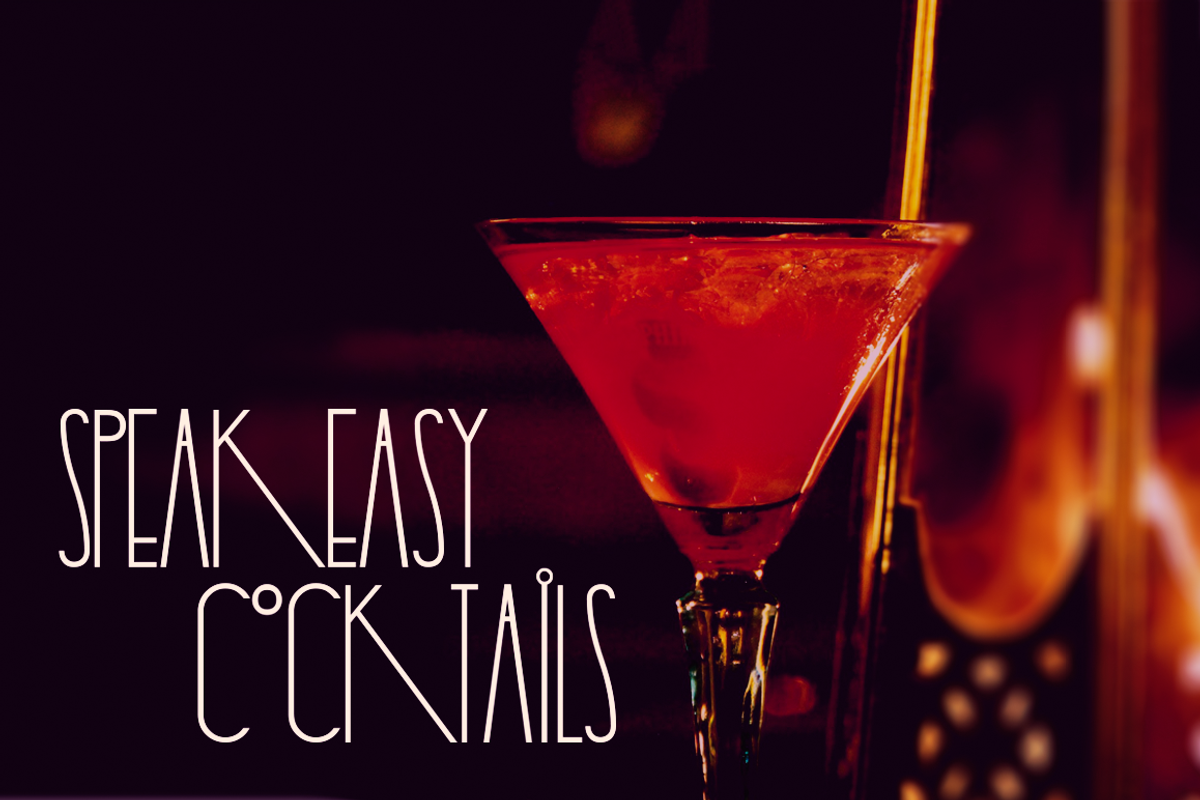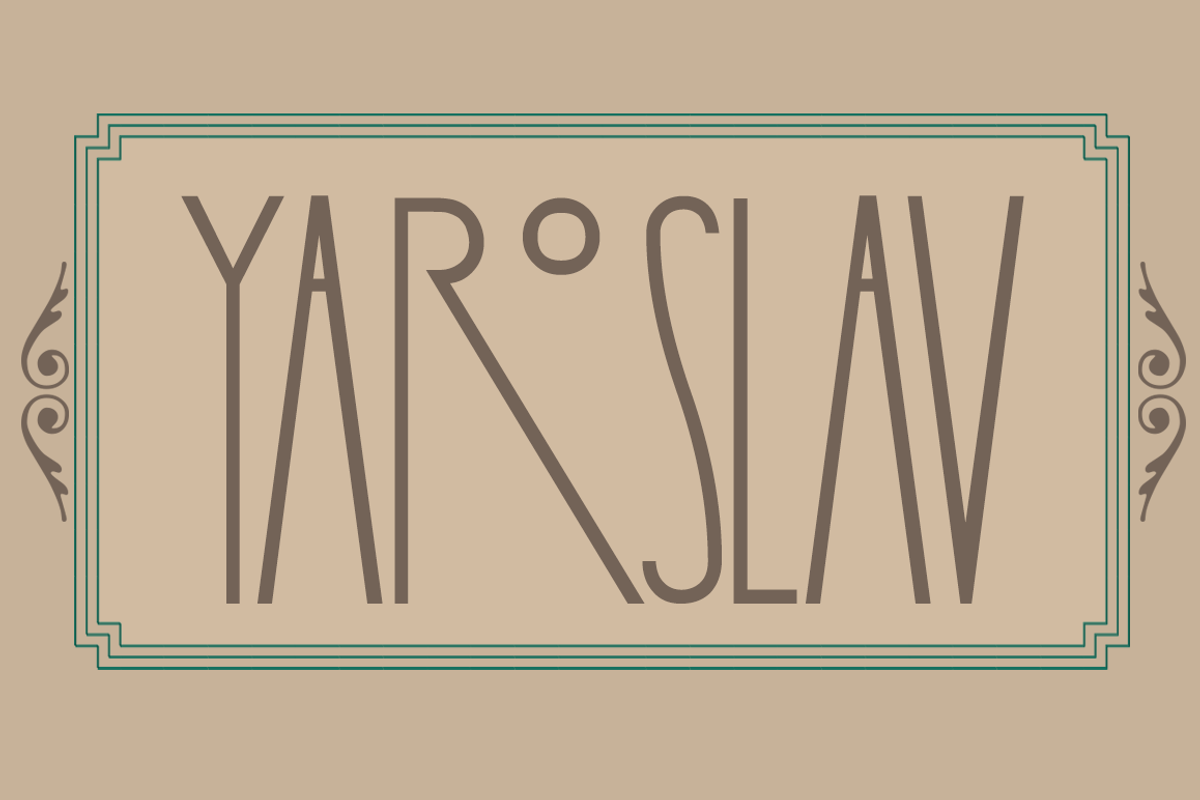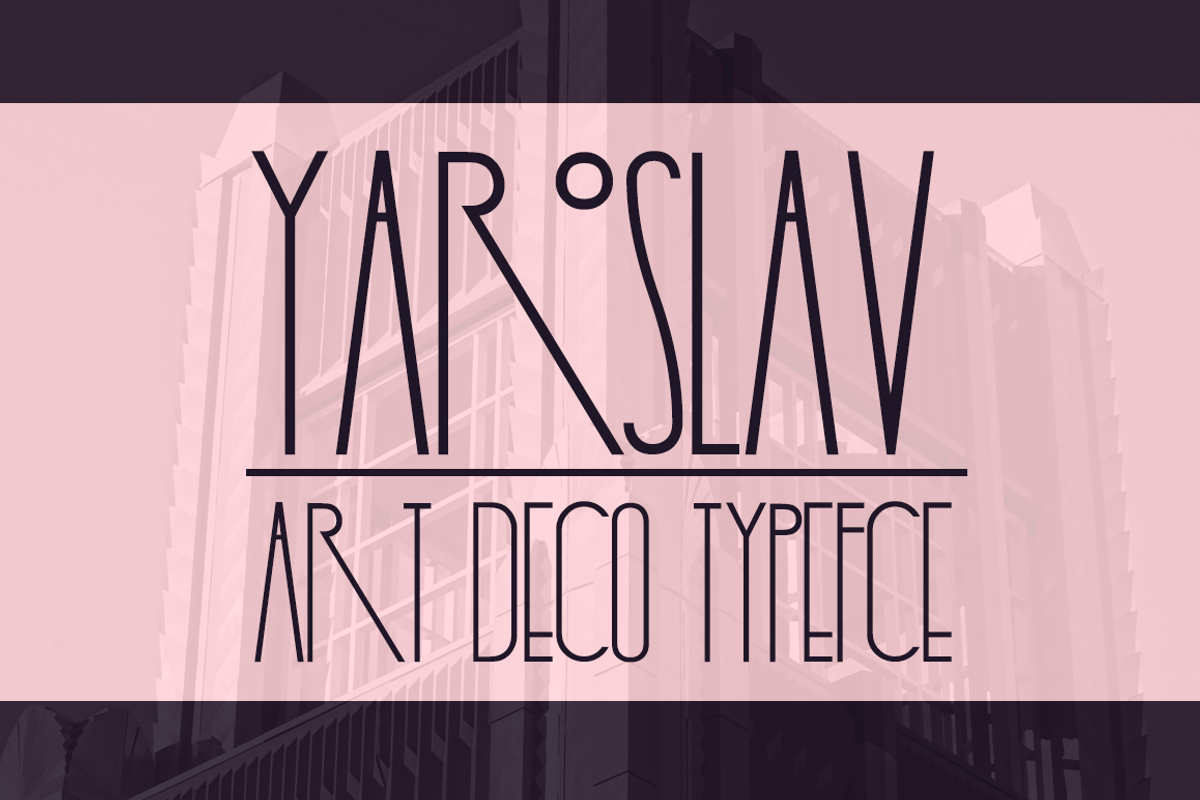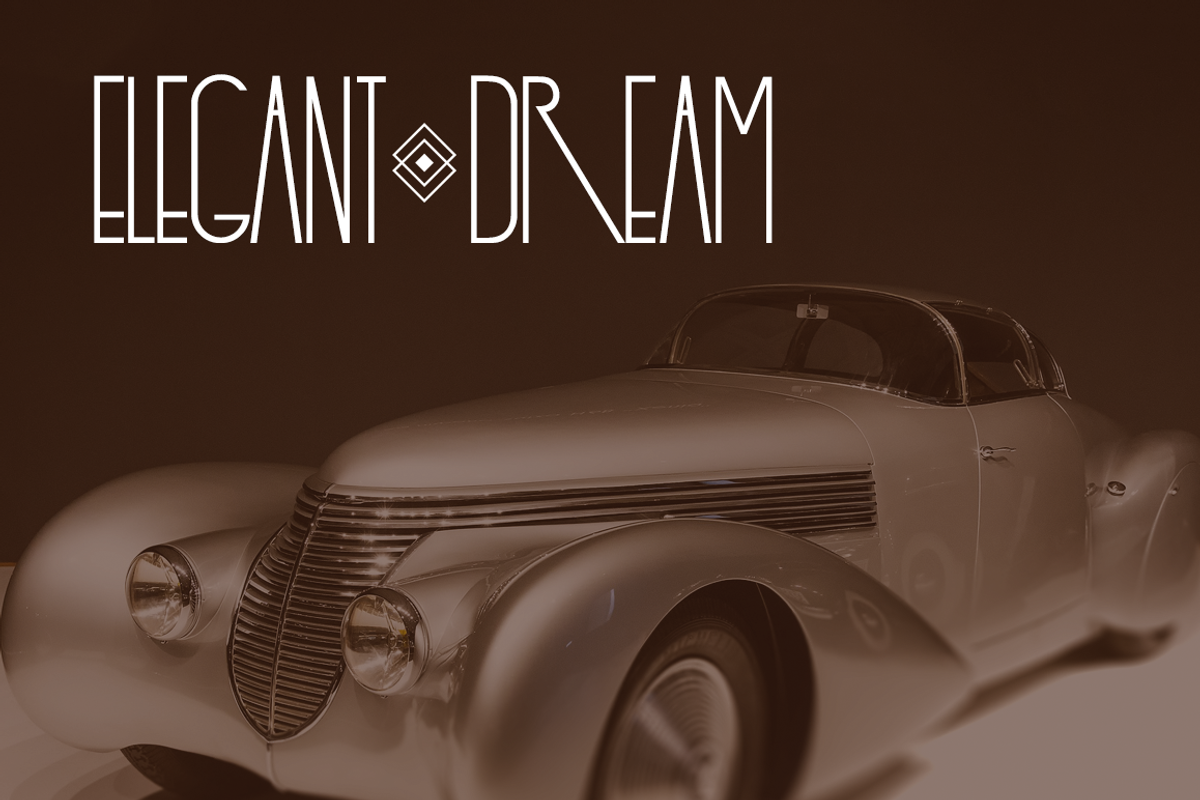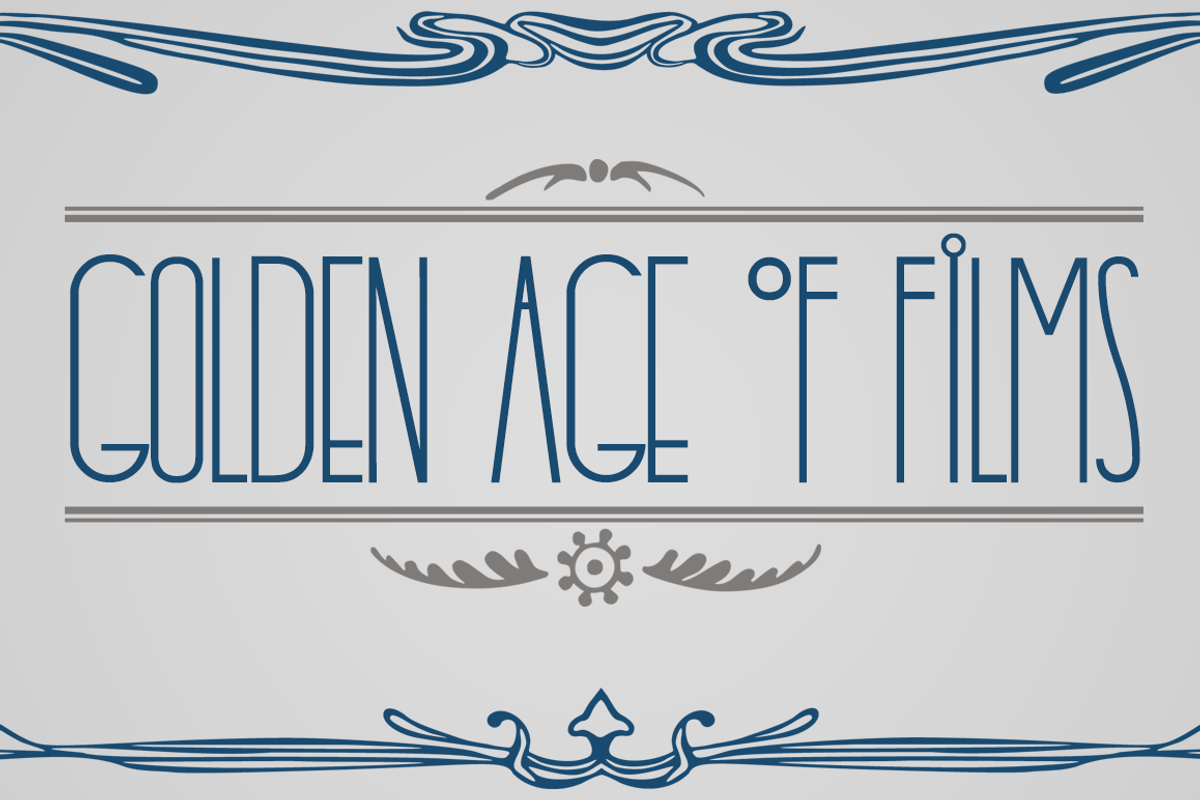
Yaroslav
Yaroslav is a unique art deco style typeface. It is a all-caps font with some variation in the lower case of certain letters such as "o". It has an elegant simplicity and is great if you are looking for something different than your typical art deco font.
Yaroslav by Cool Fonts fits naturally into Branding, posters, packaging, typography.